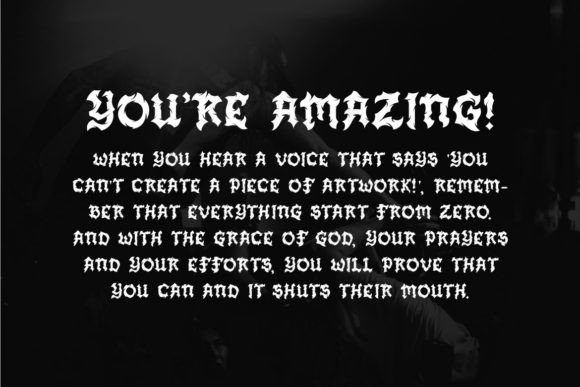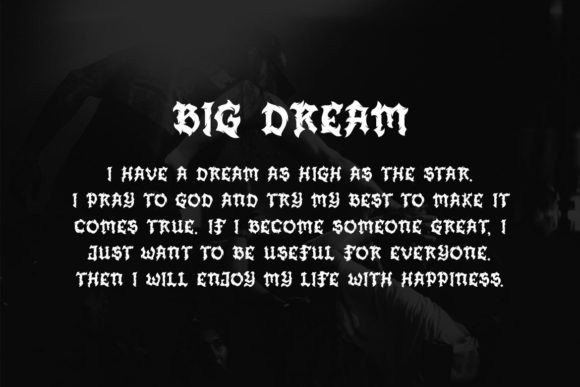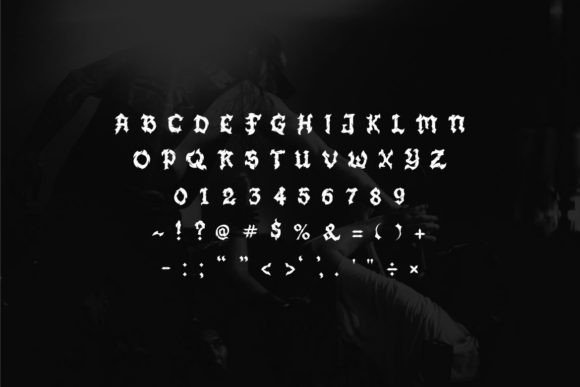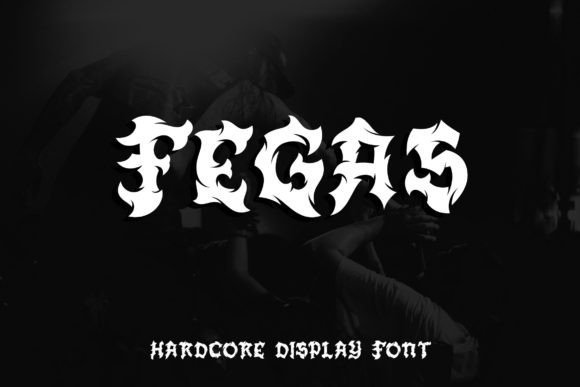
Introduction to Fegas Font
Feel the hardcore vibes of Fegas, a blackletter display font.
This font is suitable for Halloween events, comics, flyers, posters, banners, movie titles, book covers, cards, merchandise, etc .